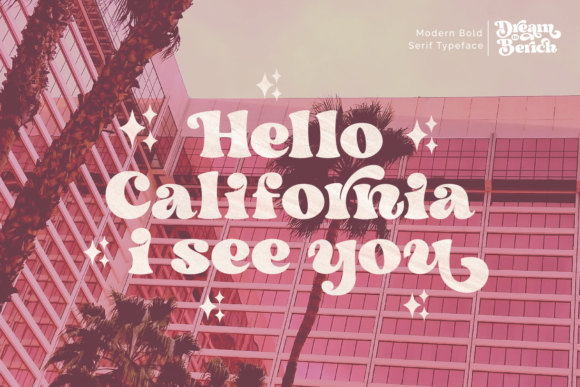
Dream to Berich Font Font
Dream to Berich is a stylish and trendy serif font. It is PUA encoded which means you can access all of the glyphs and swashes with ease!